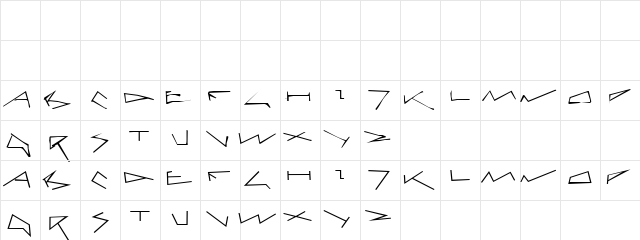
Suckfont Normal
Design Context for Suckfont Typeface
Suckfont is a composed and adaptable typeface that performs quietly and consistently across a wide range of design contexts.